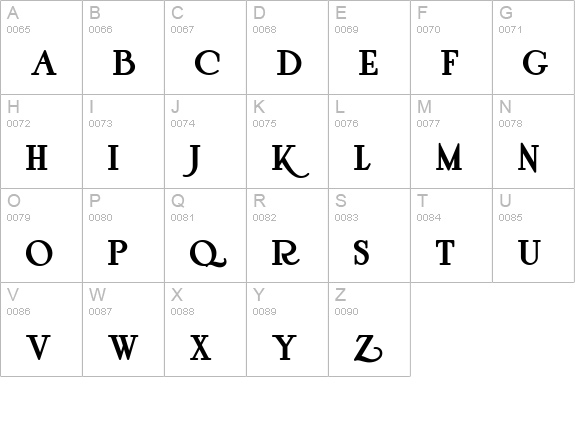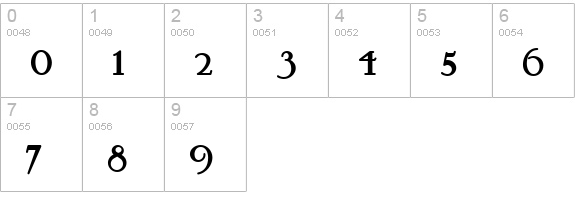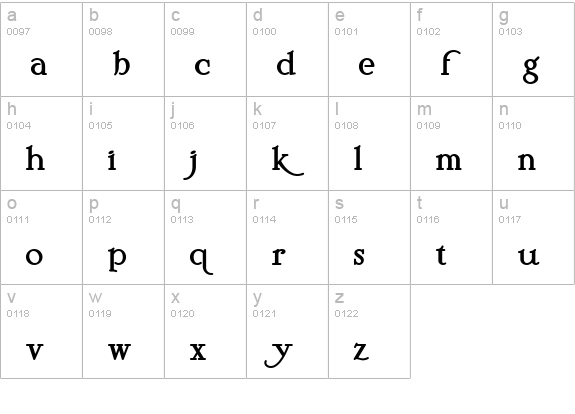
Pyriform Tones NF Font Details
Pyriform Tones NF font is a beautifully crafted display typeface that exudes elegance and sophistication. With its unique pyriform shapes and delicate serifs, this font is perfect for adding a touch of refinement to any design project. The graceful curves and distinct letterforms of Pyriform Tones NF make it a standout choice for branding, invitations, and other creative endeavors. What sets Pyriform Tones NF apart is not only its exquisite design, but also the fact that it is completely free to download. That's right - you can enhance your projects with this stunning font at no cost. Simply visit FontsMarket.com to access this premium font for free and elevate your designs with the timeless beauty of Pyriform Tones NF.